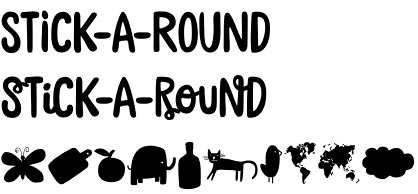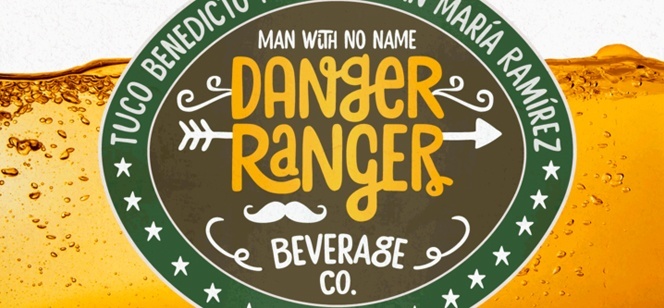
Stick-A-Round font
Stick-A-Round font is a modern decorative font with an unforgettable friendly appearance. Initially, it was planned to be an attempt to further develop the hugely successful bestselling Daft Brush font family. However as the work progressed it gradually began to form as a separate typeface with strong individual features like the rounded terminals and dynamic interlock pairs. The end result is a one-of-a-kind font that looks handmade and is incredibly sweet and lively. It will make any type job unique and memorable as it will be full of love and positivity. T-shirts, covers, party materials and any kind of works that require artistic flavor in it are just some of the possible applications.
Being a contemporary font family, Stick-A-Round provides many opportunities to its users. There are none less than 4 different variations for each letter as well as 2 for the numbers and some punctuation marks. Many extras like alternates, ornaments and ligatures are included too.
Stick-A-Round font is created by the Brazilian designers Ricardo Marcin and Erica Jung and is released by their type foundry PintassilgoPrints. We can without a doubt call them masters of creating perky and informal font families. Here are some examples of their work: Marker Aid font, Daft Brush font, Populaire font.